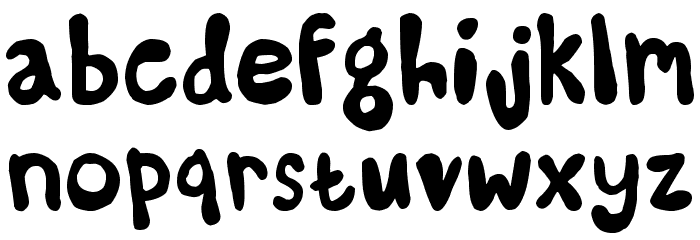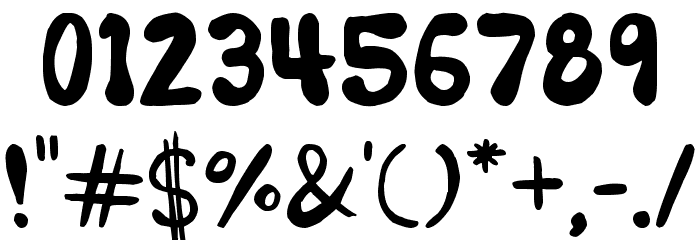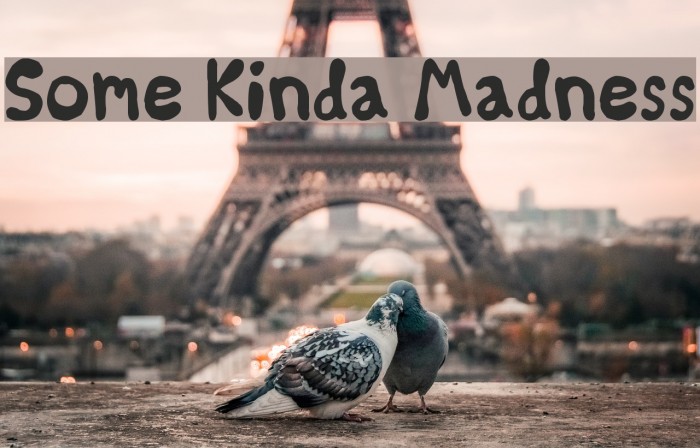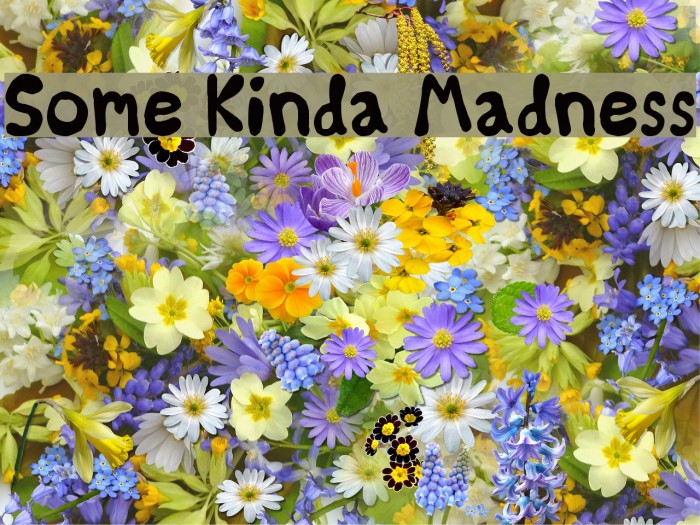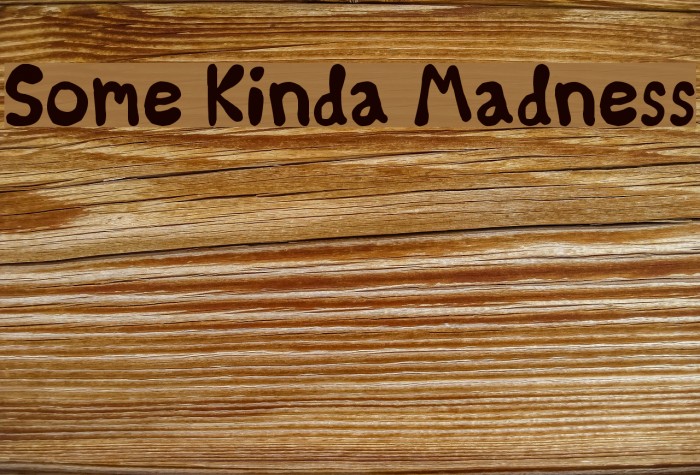
Some Kinda Madness Font
This playful and bold font features a hand-drawn, whimsical style with thick, rounded strokes. Each character exhibits a lively, energetic feel, making it ideal for creative and informal designs. The uppercase and lowercase letters maintain a consistent, friendly appearance, while the numerals and special characters complement the overall aesthetic. The font's organic shapes and slightly irregular forms add a touch of uniqueness and charm, making it stand out in various design contexts. Its boldness ensures high readability, even at smaller sizes, while the playful curves and loops add a sense of fun and creativity.
A playful, bold, hand-drawn font with thick, rounded strokes and a whimsical style.
- Proposed Projects: Ideal for children's books, playful branding, greeting cards, and creative posters.
- Overall Style: Playful